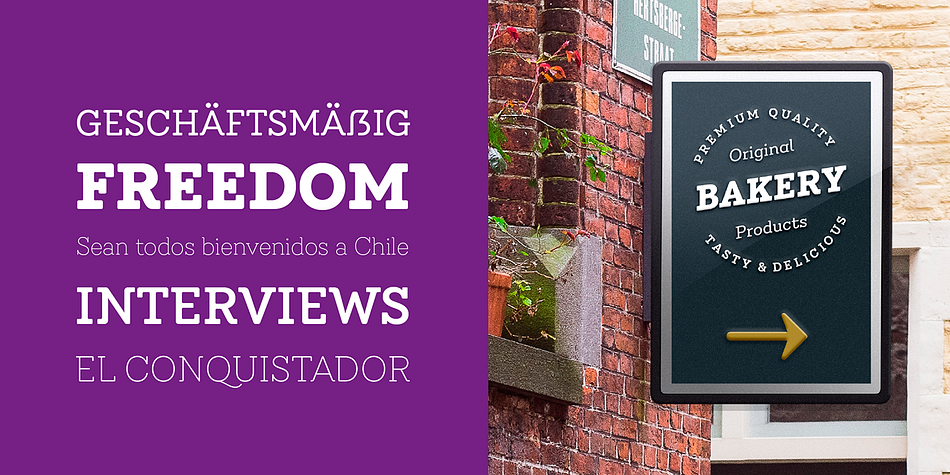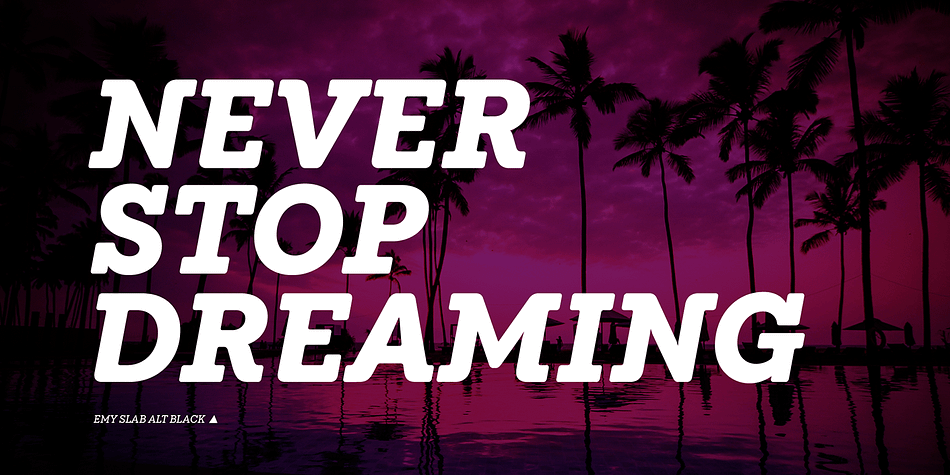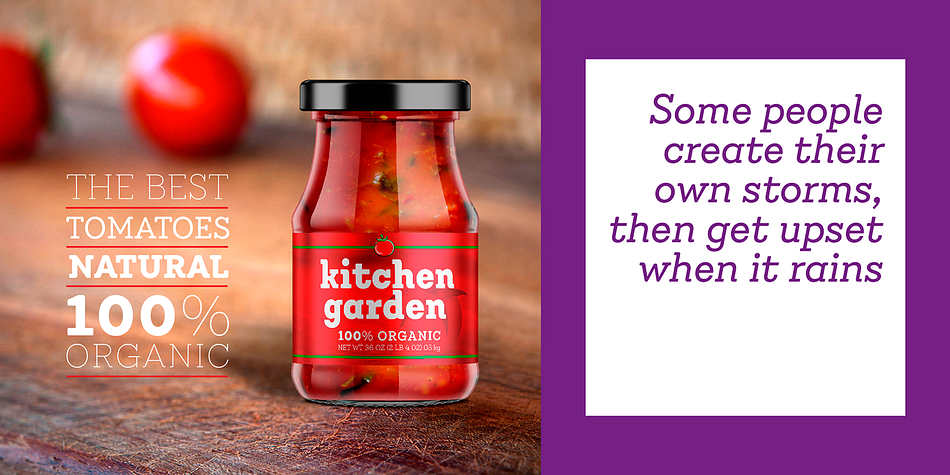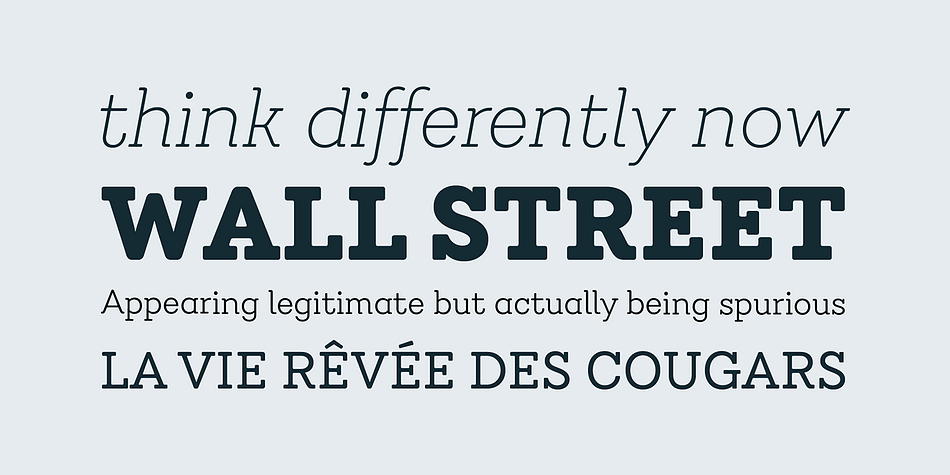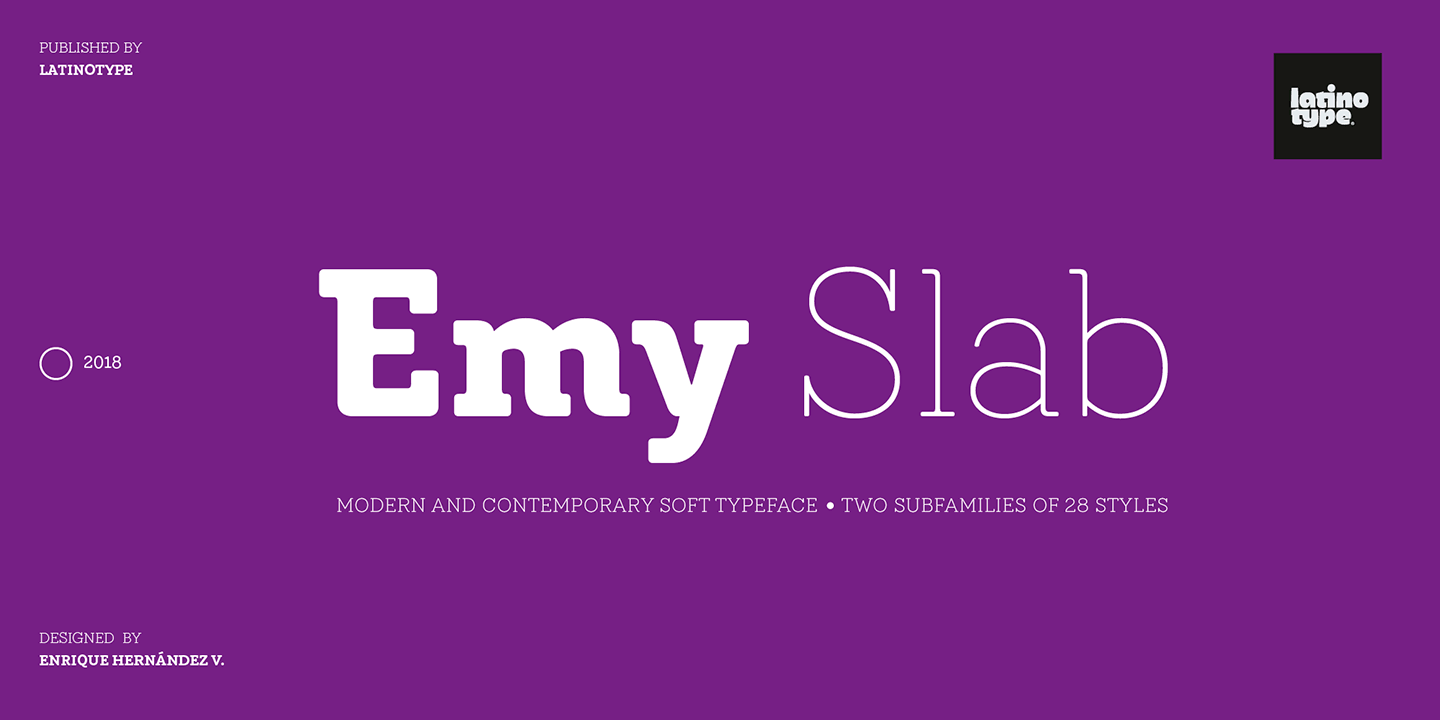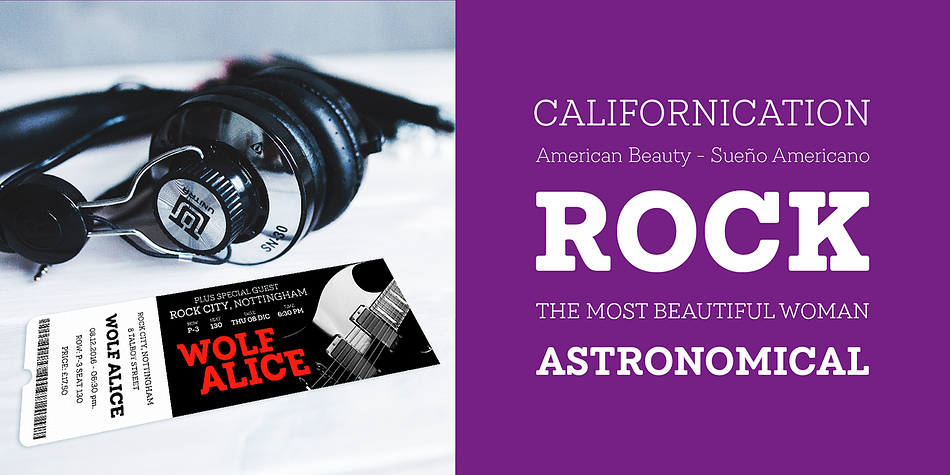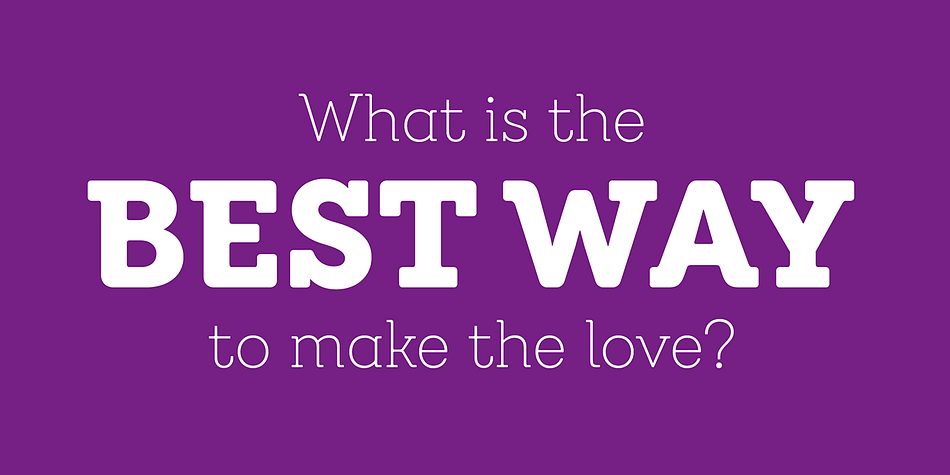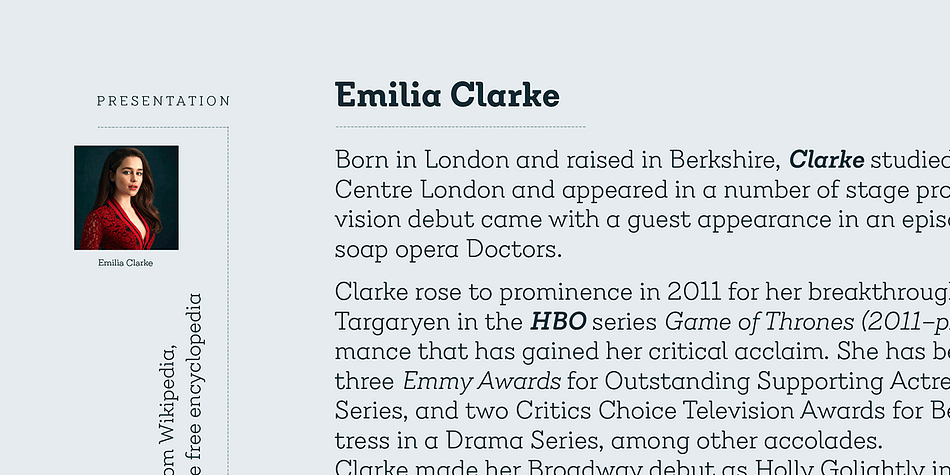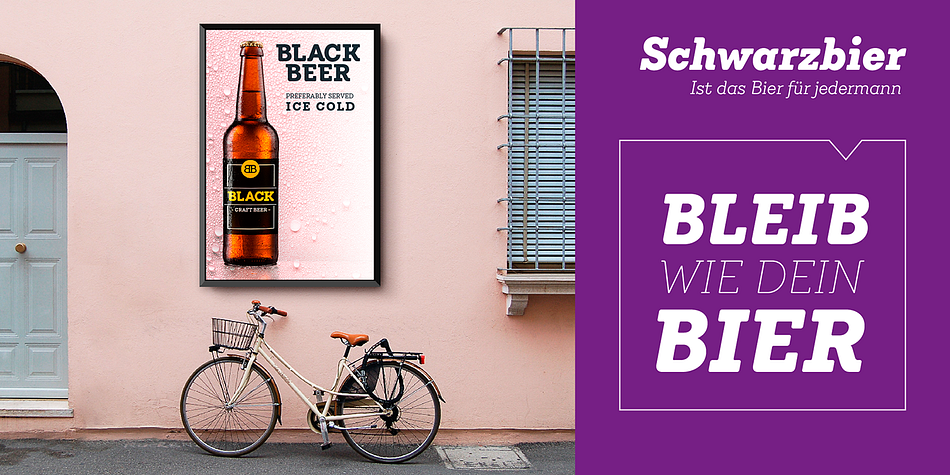
Designed by Enrique Hernandez, Emy Slab is a slab serif font family. This typeface has twenty-eight styles and was published by Latinotype.
Emy Slab is a slab serif based on the classical proportions of Egyptian typefaces but with soft terminals that give the font a more friendly and modern look.
Emy Slab consists of two subfamilies of 7 weights, ranging from Thin to Black with matching italics, resulting in a total of 28 fonts. The standard version is ideal for editorial design, tiles, books, magazines, corporate design and all types of publications. The Alt version—due to its display features, asymmetric shapes and contemporary appearance—is well suited for logotypes, branding, packaging, and use on web and Tv. Emy Slab contains a set of 440 characters that support 208 different languages.